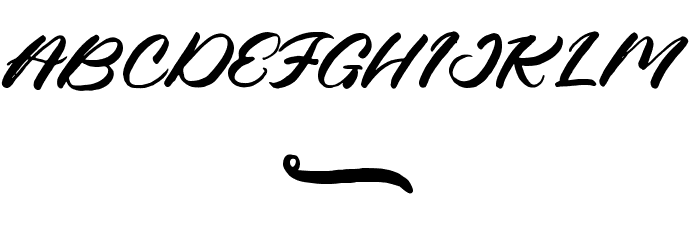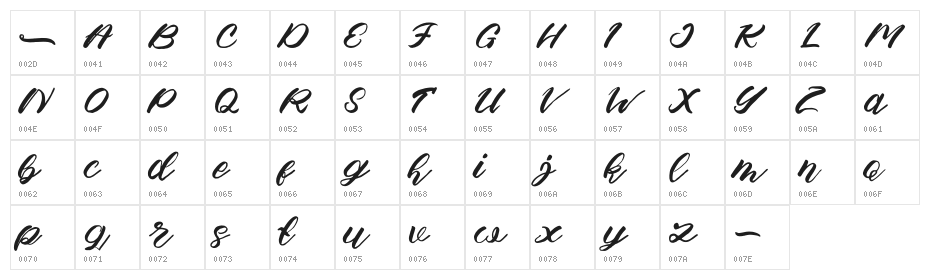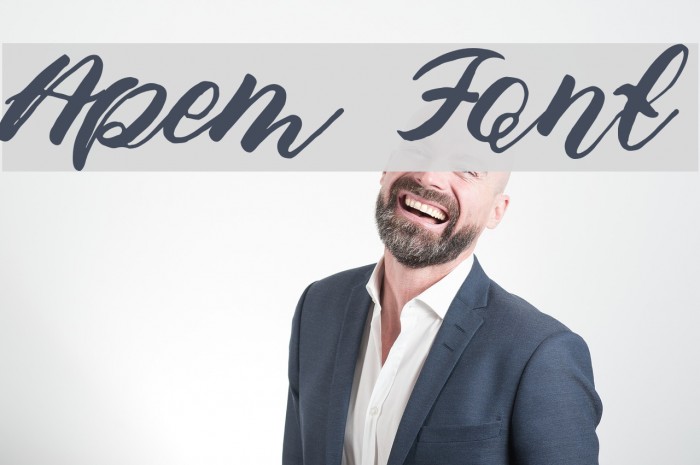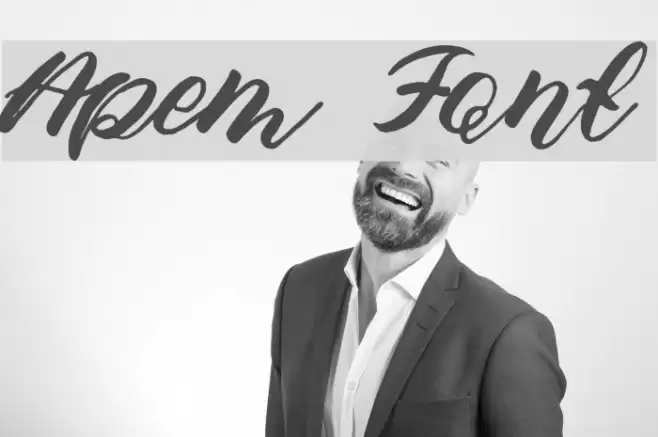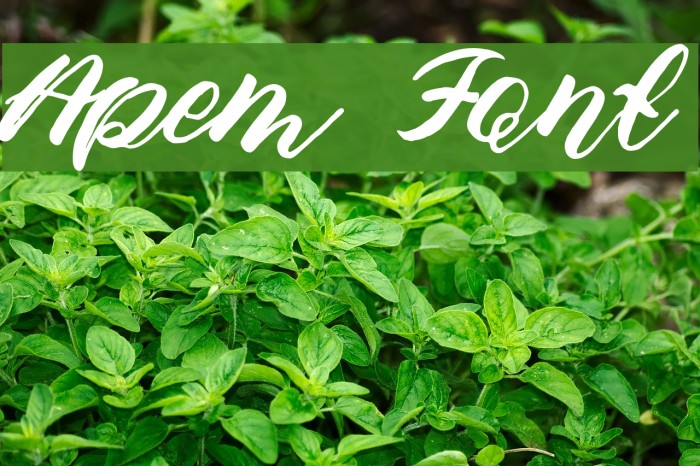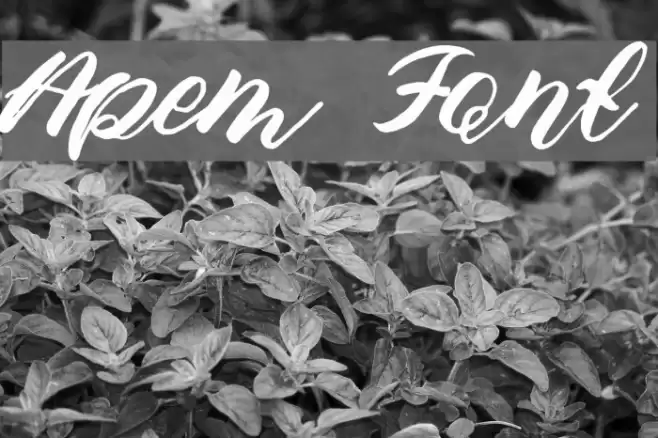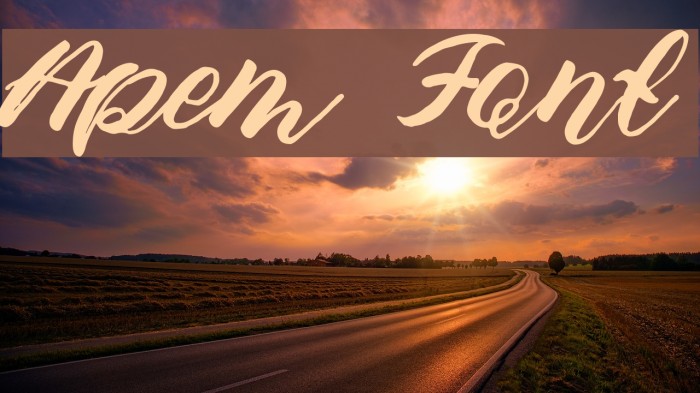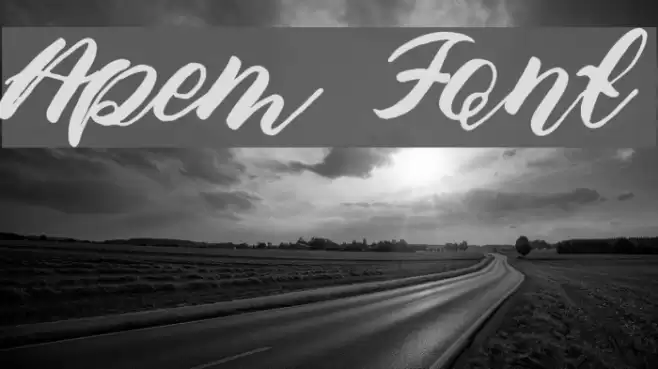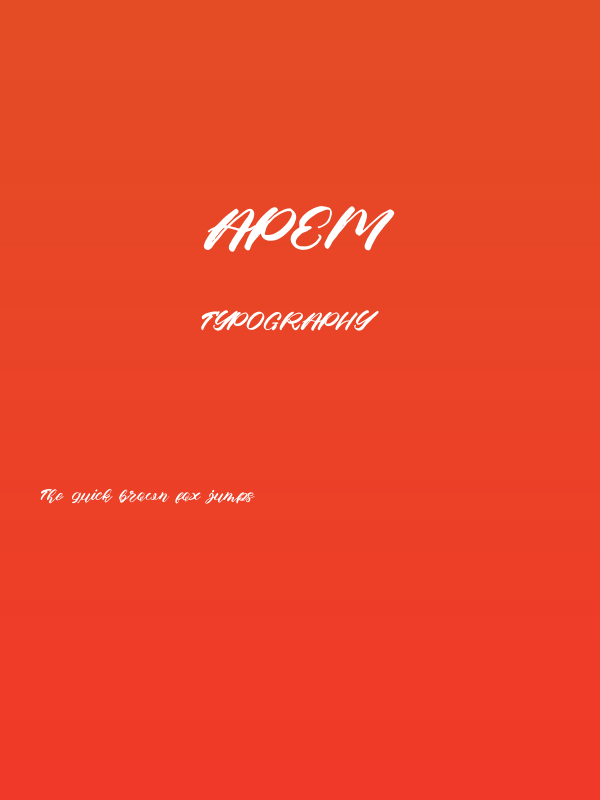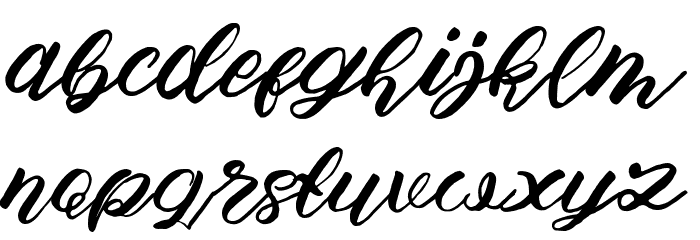
Apem Font
Apem Description
This elegant script font features fluid, cursive strokes that mimic the natural flow of handwriting. The characters are interconnected, creating a seamless and graceful appearance. The uppercase letters are bold and prominent, while the lowercase letters maintain a consistent style with subtle variations in stroke width. The font includes a full set of uppercase and lowercase letters, numerals, and a selection of special characters. Its artistic flair makes it suitable for creative and decorative applications.